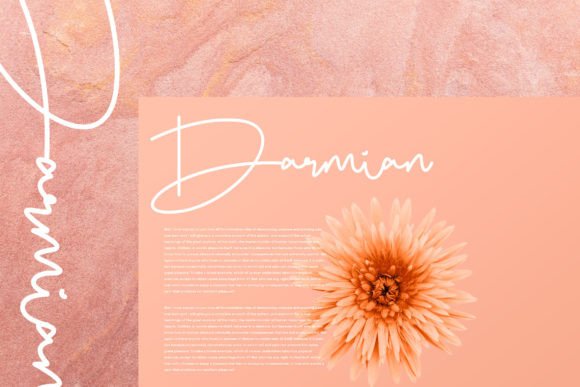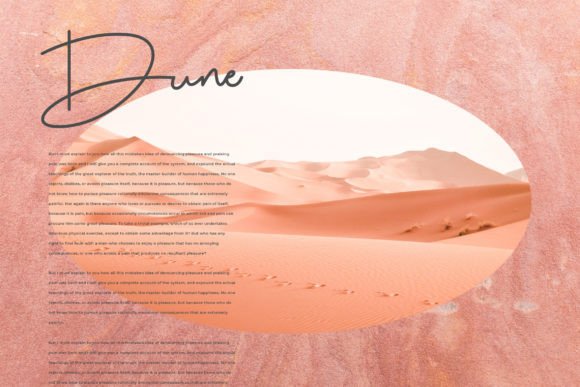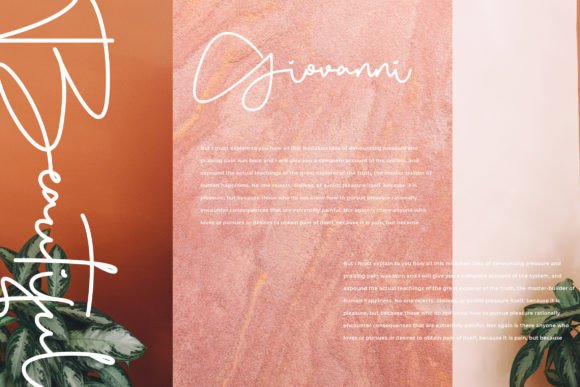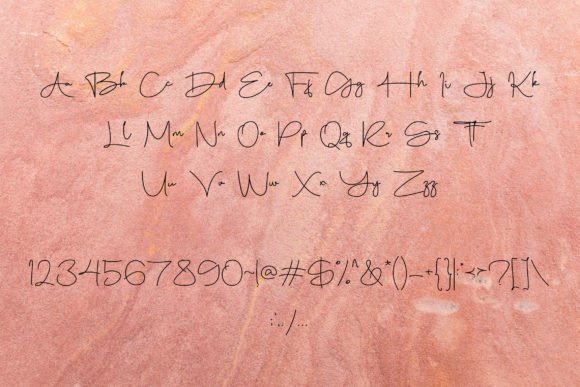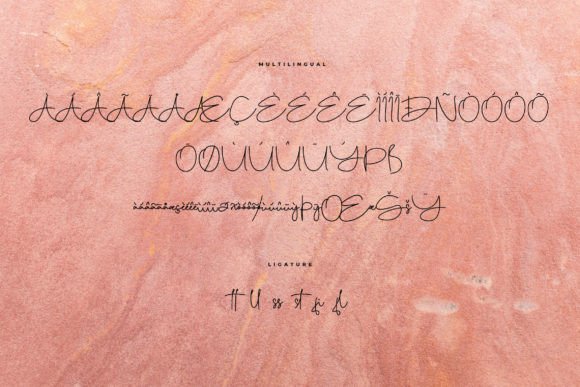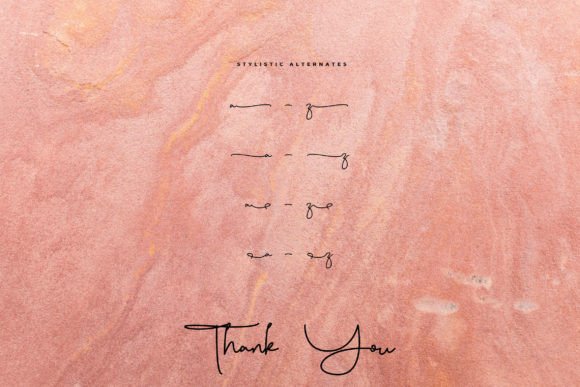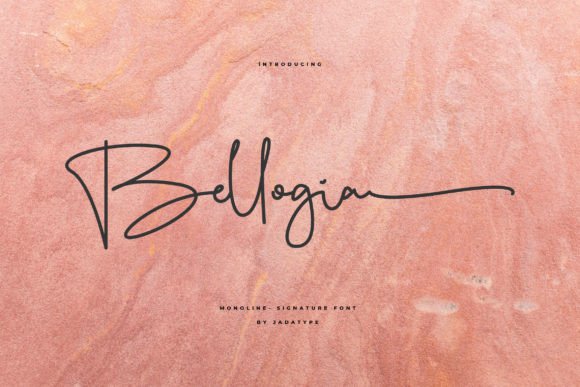
Bellogia Font: Elevate Your Designs with Elegance and Simplicity
In the world of typography, fonts play a crucial role in conveying the tone and personality of a design. For designers and crafters looking for a monoline script font that exudes natural elegance and simplicity, Bellogia Font is an excellent choice. In this article, we’ll explore the features and benefits of Bellogia Font, and how it can elevate your designs, crafts, branding, and products.
What is Bellogia Font?
Bellogia Font is a monoline script font designed to provide a natural, elegant, and simple impression. Its clean lines and fluid curves make it perfect for a wide range of applications, from digital designs to print materials. Whether you’re working on a branding project, crafting a social media post, or creating a product label, Bellogia Font is an excellent addition to your typography arsenal.
Key Features of Bellogia Font
- Monoline Script: Bellogia Font features a monoline script style, characterized by its smooth, connected letters and flowing curves.
- Elegant and Simple: The font’s design is both elegant and simple, making it versatile for various design applications.
- Natural Impression: Bellogia Font has a natural, organic feel that adds a touch of warmth and personality to your designs.
- High Versatility: This font can be used for a wide range of projects, including designs, crafts, branding, products, social media, t-shirts, print designs, and more.
Benefits of Using Bellogia Font
Bellogia Font offers several benefits that make it an attractive choice for designers and crafters:
- Enhances Readability: The font’s clear and simple design ensures excellent readability, even at smaller font sizes.
- Boosts Brand Identity: Bellogia Font’s elegant and natural impression can help establish a strong brand identity and aesthetic.
- Streamlines Design Process: With its versatile design, Bellogia Font can be used across various projects, saving you time and effort in selecting multiple fonts.
- Adds Emotional Connection: The font’s natural and elegant feel can help create an emotional connection with your audience, making your designs more engaging and memorable.
Design Applications for Bellogia Font
Bellogia Font’s versatility makes it suitable for a wide range of design applications:
- Branding and Logo Design: Use Bellogia Font to create a strong brand identity and logo that reflects your brand’s personality.
- Social Media Graphics: Add a touch of elegance and simplicity to your social media posts, stories, and profiles.
- T-Shirt and Merchandise Design: Create eye-catching and stylish designs for t-shirts, hoodies, and other merchandise.
- Print Design: Use Bellogia Font for brochures, flyers, posters, and other print materials to add a touch of sophistication.
- Crafts and DIY Projects: Incorporate Bellogia Font into your craft projects, such as handmade cards, gift tags, and scrapbooking.
Bellogia Font is an excellent addition to any designer’s or crafter’s typography collection. Its monoline script style, elegant and simple impression, and natural feel make it versatile for various design applications. With its numerous benefits, including enhanced readability, boosted brand identity, and streamlined design process, Bellogia Font is sure to elevate your designs, crafts, branding, and products. So why not give Bellogia Font a try and experience the power of elegant simplicity in your designs?